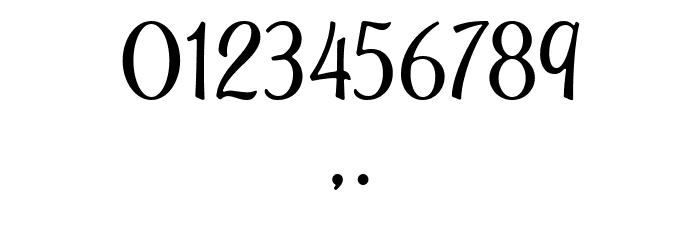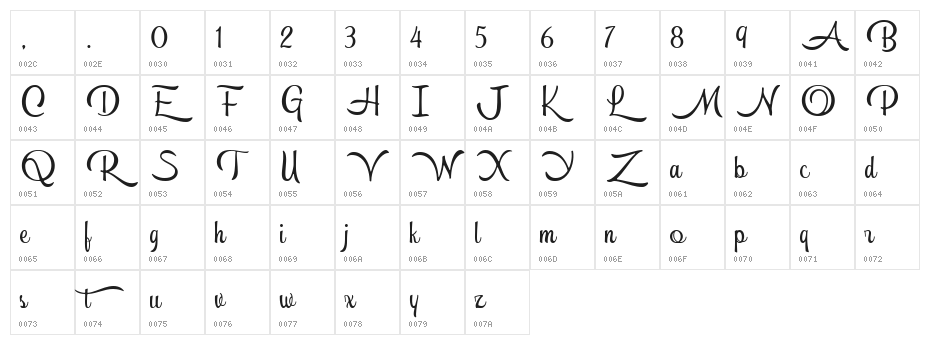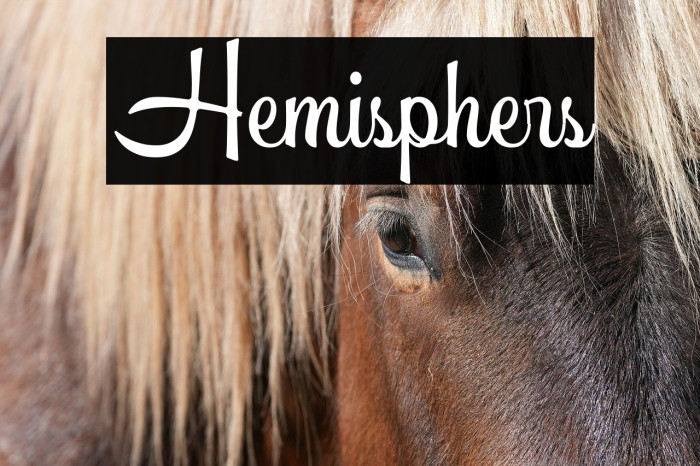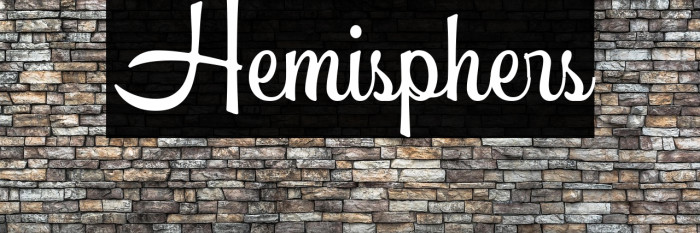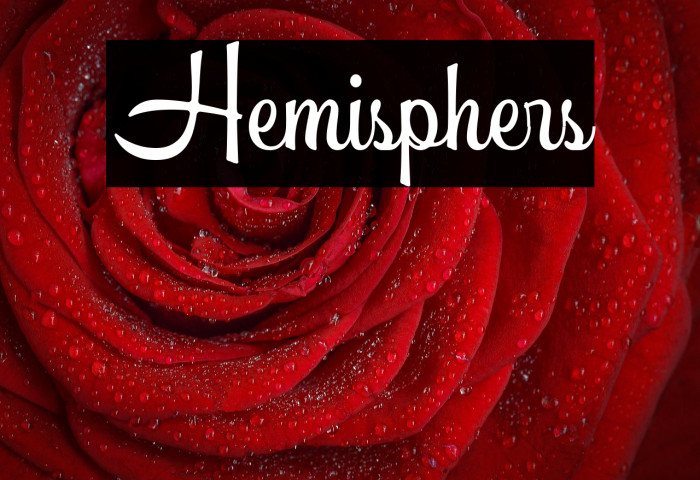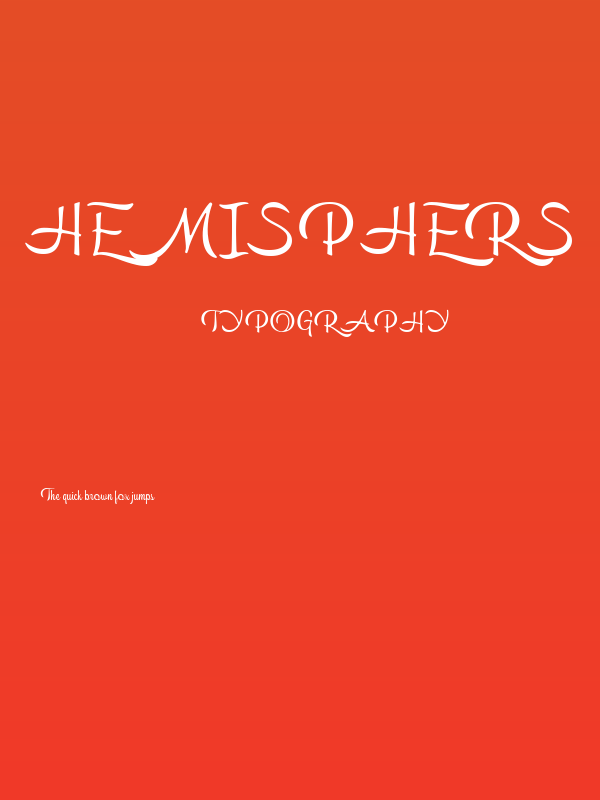
Hemisphers Font
Hemisphers Description
This font features a unique blend of elegance and flair, characterized by its flowing, cursive style. The uppercase letters exhibit a graceful, sweeping motion with distinctive loops and curves, giving them a dynamic and artistic appearance. The lowercase letters maintain a consistent fluidity, with some characters extending below the baseline, adding to the font's charm. The numerals are bold and slightly rounded, ensuring readability while maintaining the overall aesthetic. Special characters are thoughtfully designed to complement the letterforms, making this font versatile for various design needs.